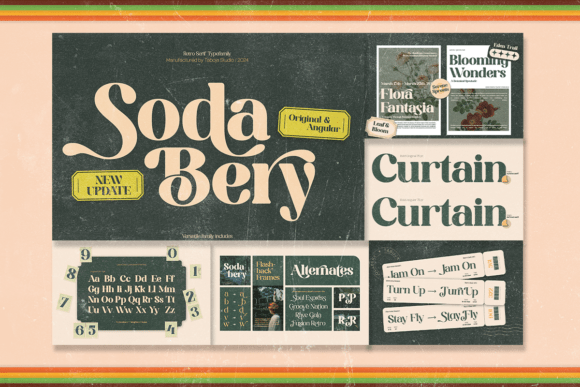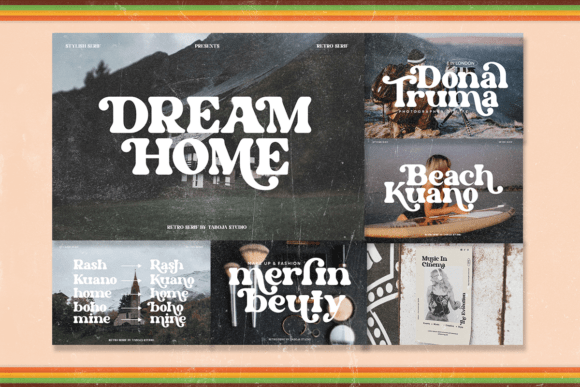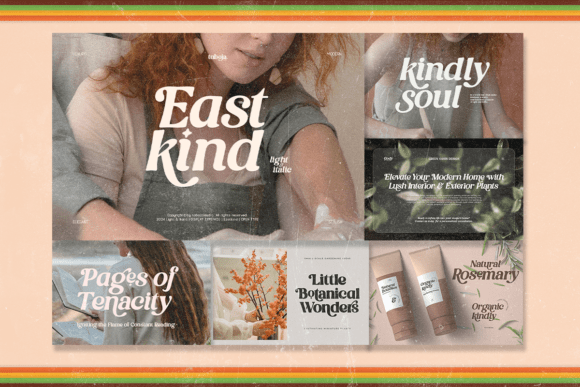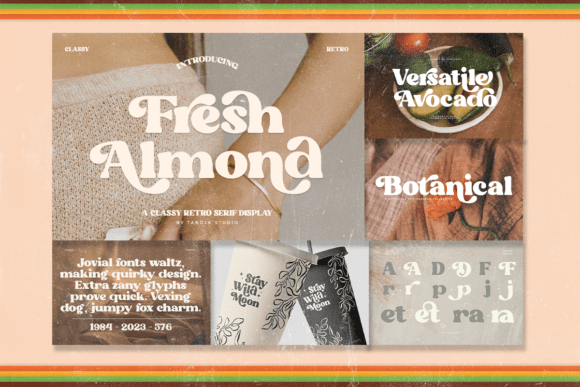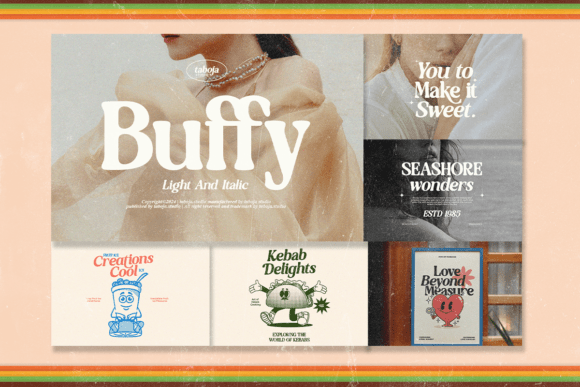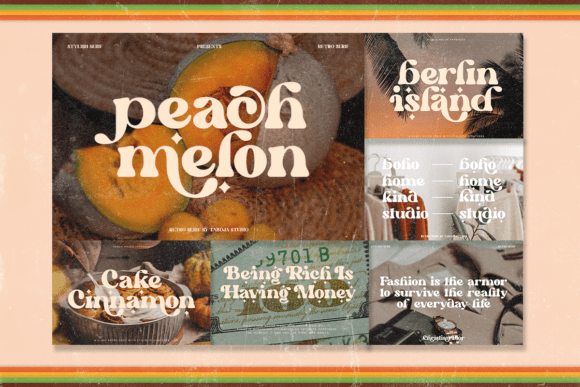
Introduction to Retro Groovy Bundle Font
Have you ever found yourself rummaging through your grandparents’ attic, uncovering a treasure trove of vintage trinkets and forgotten treasures? The nostalgic feelings that come with revisiting the past can be a powerful catalyst for creativity. For designers, nothing sparks the imagination quite like the vibrant aesthetics of the 60s and 70s.
Introducing the Retro Groovy Bundle Font, a collection of 7 high-quality display fonts that will transport you back in time. With its funky, playful, and bold design, this bundle is the perfect resource for any creative project. Whether you’re working on a logo, branding, packaging, or social media content, this font bundle has got you covered.
Key Features of Retro Groovy Bundle Font
- High-quality, unique font bundle designed for creative projects, perfect for adding a touch of nostalgia and fun.
- Includes a range of fonts with transparent backgrounds, ideal for graphic designers, digital artists, and animators.
- Features a unique blend of retro and modern styles, making it perfect for creating eye-catching designs and graphics.
Honest Review: Retro Groovy Bundle Font
I recently stumbled upon the Retro Groovy Bundle Font, and I must say it’s been a fantastic addition to my design resource collection. As a designer, I’m always on the lookout for high-quality fonts that can elevate my creative projects to the next level.
The Retro Groovy Bundle Font offers an impressive array of styles, from bold and playful to elegant and sophisticated. I’ve been using it for a free download project, and it’s been a perfect fit. The transparent background feature is a huge plus, making it easy to integrate with any design element.
- Impressive variety of styles to suit different design needs
- Transparent background feature for seamless integration
- Some styles may not be suitable for more formal or professional designs
- May require additional editing to achieve desired results
Overall, I’m thoroughly impressed with the Retro Groovy Bundle Font. It’s a fantastic design resource that’s sure to add a touch of creativity to any project. With its high-quality styles and transparent background feature, it’s an essential addition to any designer’s collection.
Tips for Getting the Most Out of the Retro Groovy Bundle Font
For a high-quality creative project, use the Retro Groovy Bundle Font in conjunction with a transparent background to create a unique and eye-catching design.
Use the font to add a touch of retro flair to your design, whether it’s a logo, poster, or social media graphic.
The Retro Groovy Bundle Font is perfect for:
- Designing a retro-themed website or social media campaign.
- Creating a logo or branding materials for a vintage-inspired business.
- Adding a touch of nostalgia to a wedding invitation or party flyer.